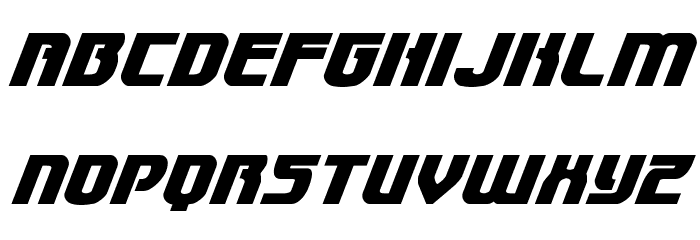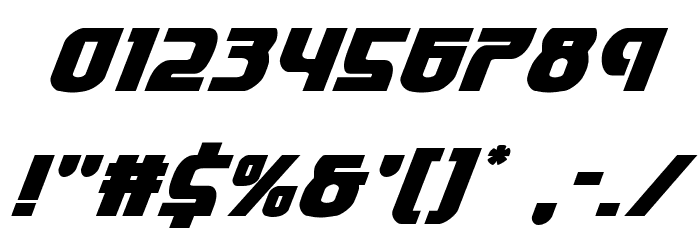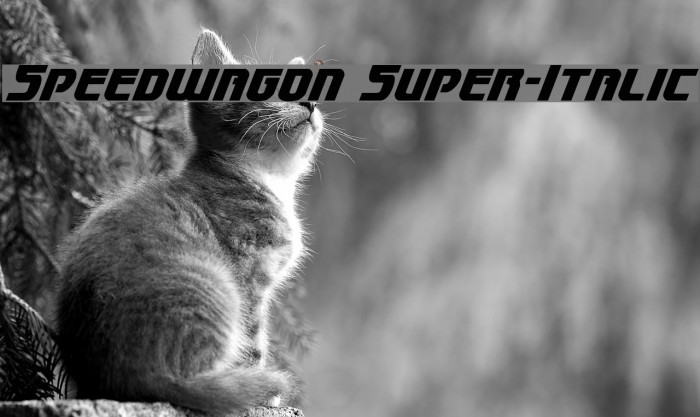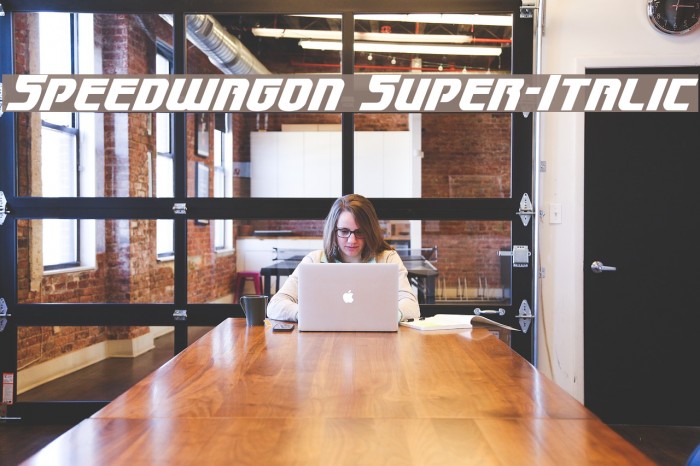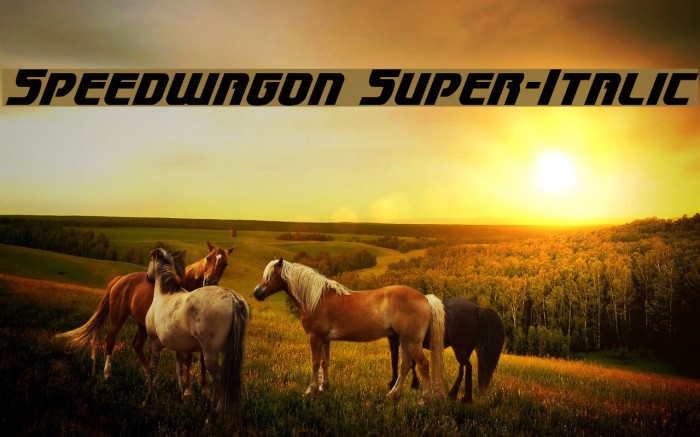
Speedwagon Super-Italic Font
This font features a bold, dynamic style with a strong italic slant, giving it a sense of speed and movement. The characters are wide and robust, with sharp angles and clean lines that convey a modern and futuristic aesthetic. The uppercase and lowercase letters maintain a consistent design, ensuring readability while adding a unique flair. The numerals and special characters are equally bold and stylized, making them stand out. This font is ideal for projects that require a striking and energetic look, such as sports branding, automotive designs, or dynamic advertising campaigns.
A bold, italic font with a modern, dynamic style.
- Proposed Projects: Ideal for sports branding, automotive designs, dynamic advertising, and energetic presentations.
- Width: Expanded